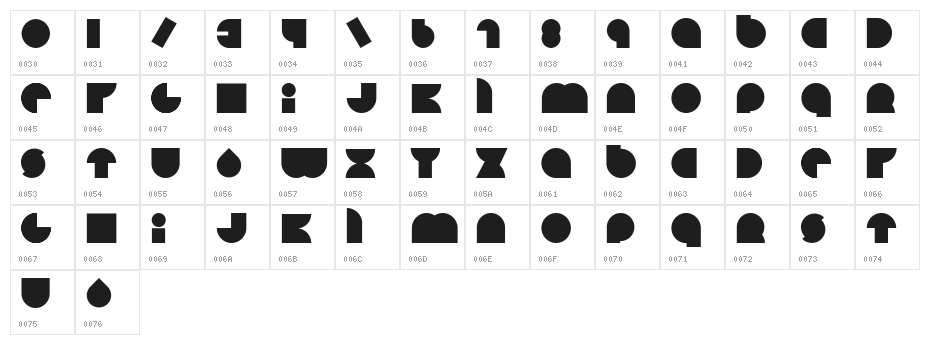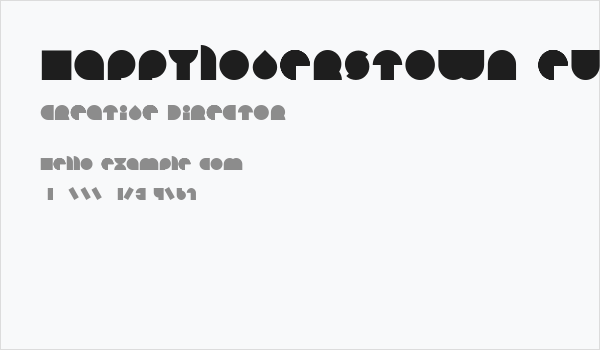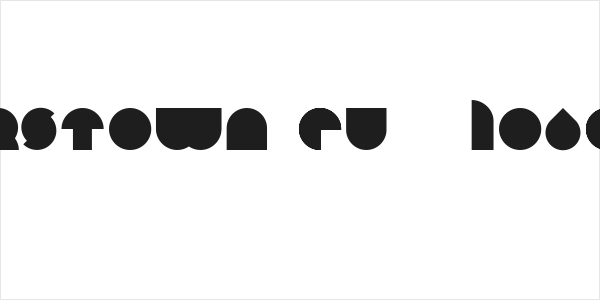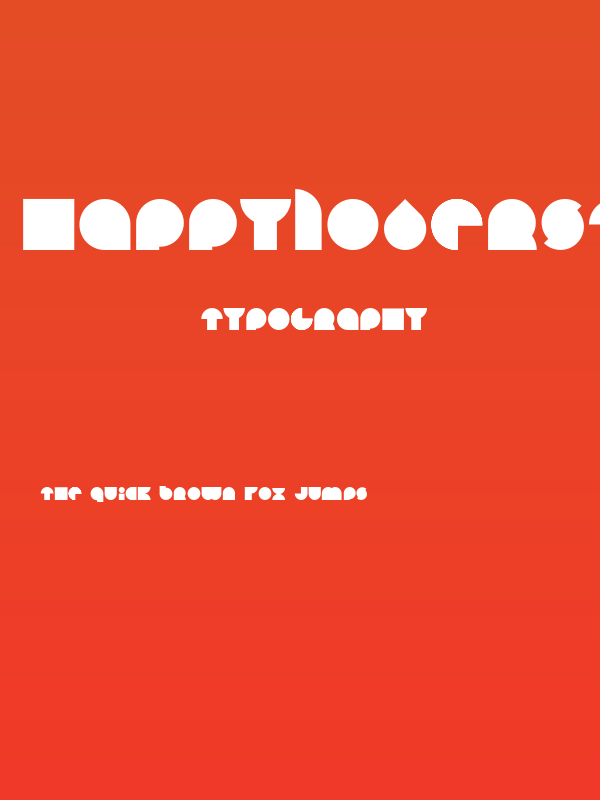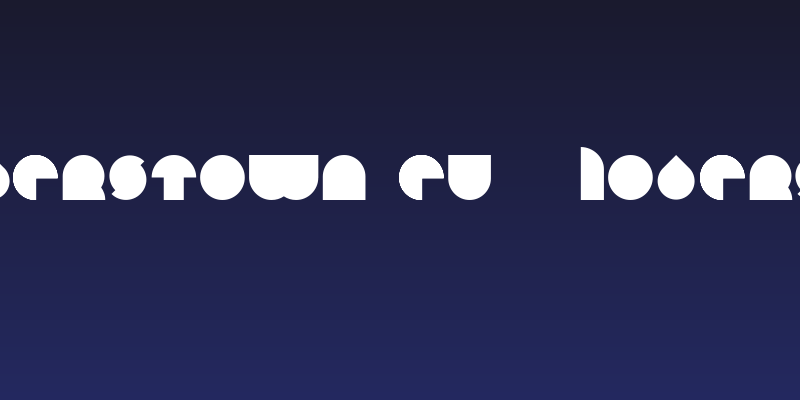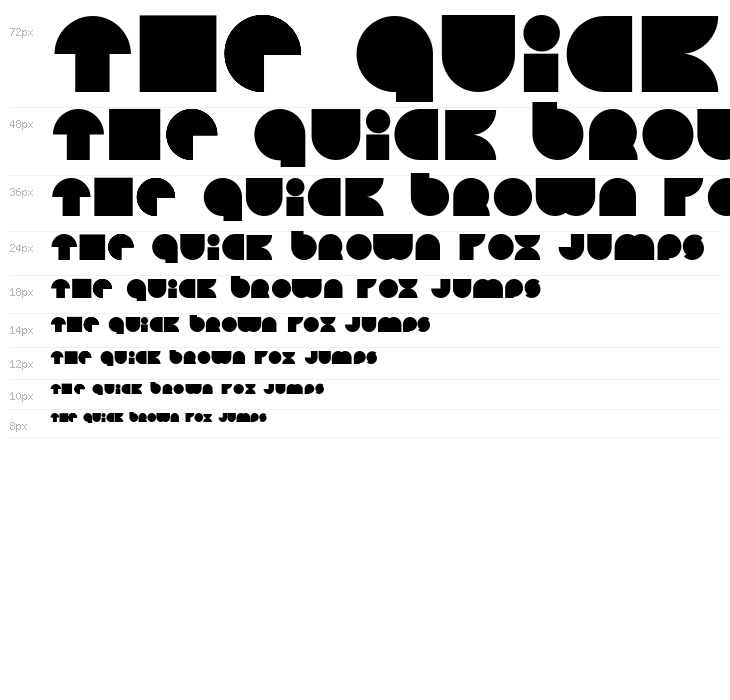
HAPPYLOVERSTOWN.EU - Lovers Square Font
HAPPYLOVERSTOWN.EU - Lovers Square Description
This font features a bold, geometric style with a playful and modern aesthetic. Each character is crafted with a combination of circular and angular shapes, creating a unique and eye-catching appearance. The letters are uniform in width, contributing to a cohesive and balanced look. The uppercase and lowercase letters share similar design elements, enhancing the font's consistency. The numbers and special characters maintain the same geometric theme, ensuring a harmonious overall design. This font is ideal for projects that require a strong visual impact and a contemporary feel.